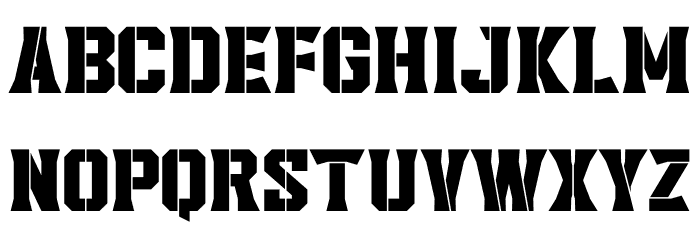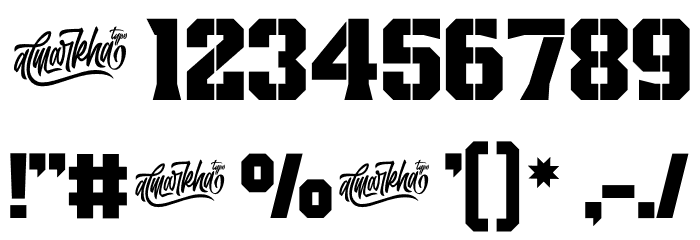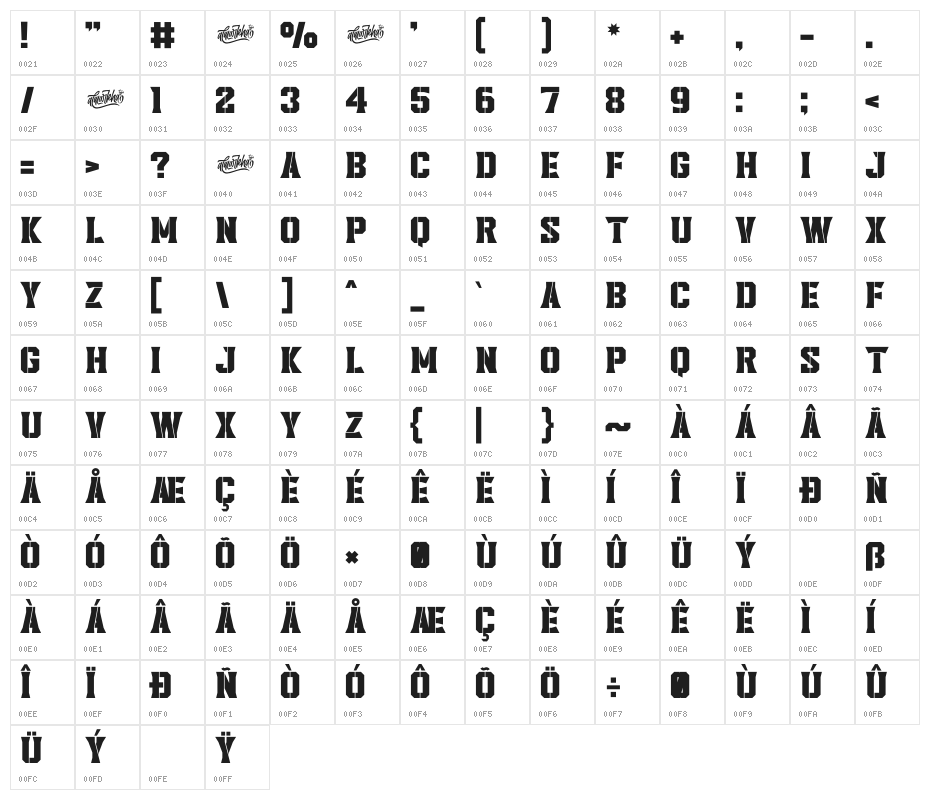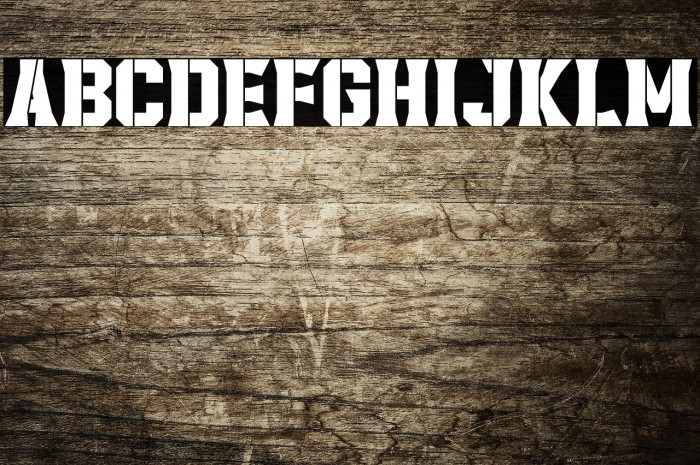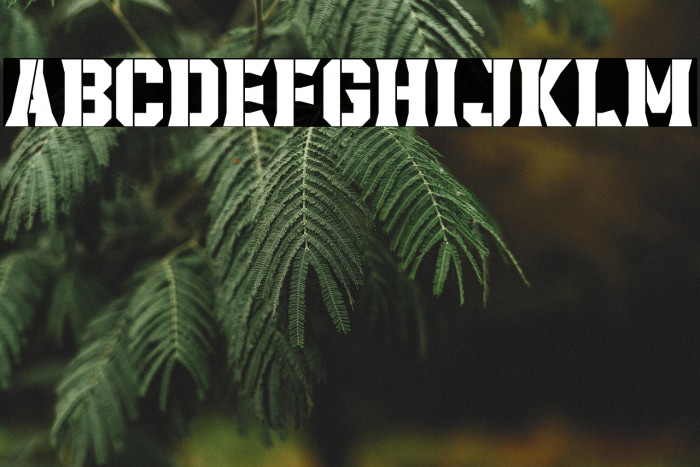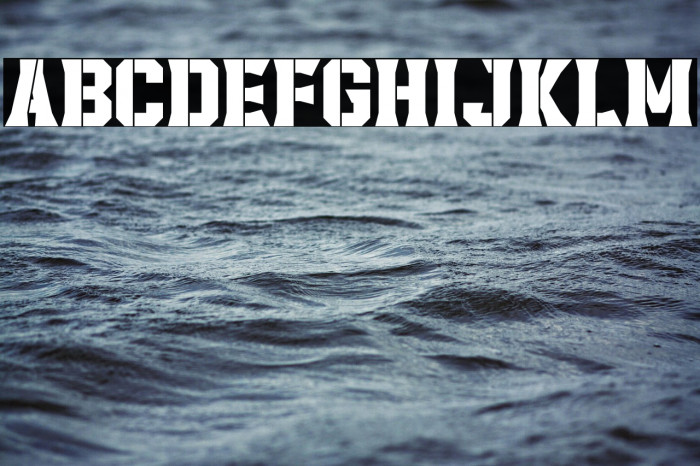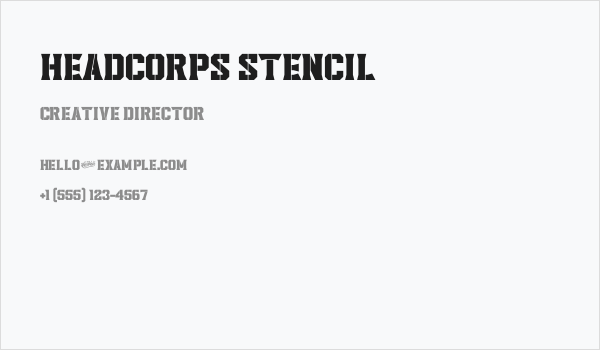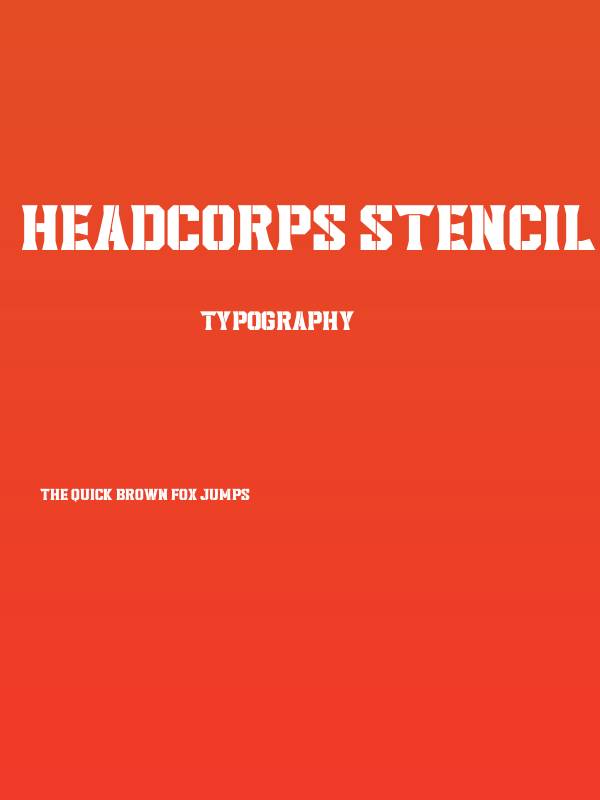
Headcorps Stencil Font
This font features a bold, stencil-like design with sharp, angular cuts and a solid presence. The uppercase letters are particularly striking, with a military-inspired aesthetic that conveys strength and authority. The numbers and special characters maintain this bold style, ensuring consistency across all characters. The font's design is highly geometric, with a focus on symmetry and balance, making it ideal for impactful headlines and attention-grabbing displays. Its stencil nature allows for a rugged, industrial feel, suitable for projects that require a touch of edginess and modernity.
A bold, stencil-style font with sharp, angular cuts and a strong, geometric design.
- Font: Headcorps Stencil
- Proposed Projects: Ideal for military-themed designs, posters, logos, and any project requiring a bold, industrial look.
- Overall Style: Modern, Industrial